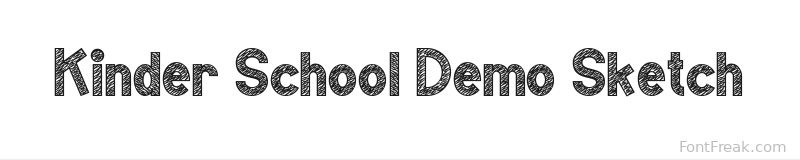
Kinder School Demo Sketch
The Kinder School Demo Sketch font by Noah Type is a delightful handwritten typeface that captures the essence of playful creativity. With a distinct sketch-like quality, this font features a medium stroke weight and subtle variations that add a sense of warmth and personality. The lightly textured appearance gives it an inviting feel, while the slightly irregular spacing enhances its hand-drawn charm, making it perfect for a variety of design applications.
This font is particularly well-suited for use in educational materials, children's book covers, and playful branding projects. Its whimsical character makes it an excellent choice for crafting vibrant birthday invitations, engaging school newsletters, and eye-catching posters for kids' events. Small business owners looking to create a friendly and approachable image will find the Kinder School Demo Sketch font invaluable for their marketing materials, including flyers and social media graphics.
The target audience for this font encompasses graphic designers, educators, small business owners, and content creators who seek to infuse their projects with a sense of fun and creativity. Its versatile nature allows it to be used in various contexts, appealing to those who want to convey a lighthearted message.
What sets the Kinder School Demo Sketch font apart is its unique blend of charm and functionality. The hand-drawn aesthetic not only resonates with a younger audience but also evokes a sense of nostalgia, making it a standout choice for designs aimed at children and families. If you're looking for a font that combines creativity with a friendly vibe, the Kinder School Demo Sketch font free download offers an excellent opportunity to elevate your projects with its delightful style.